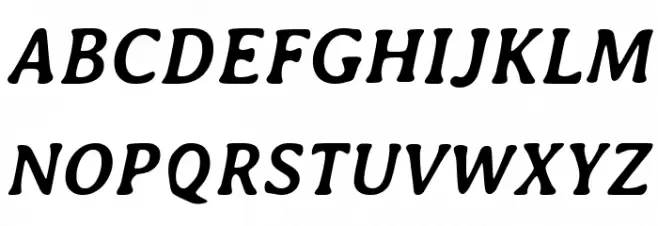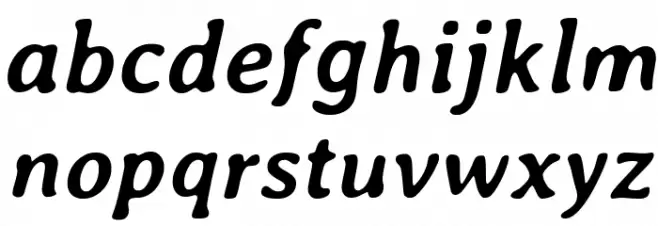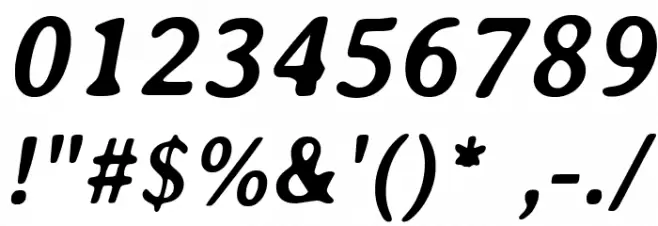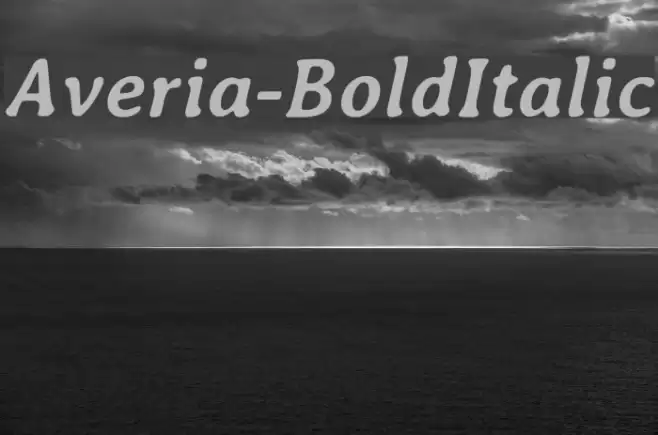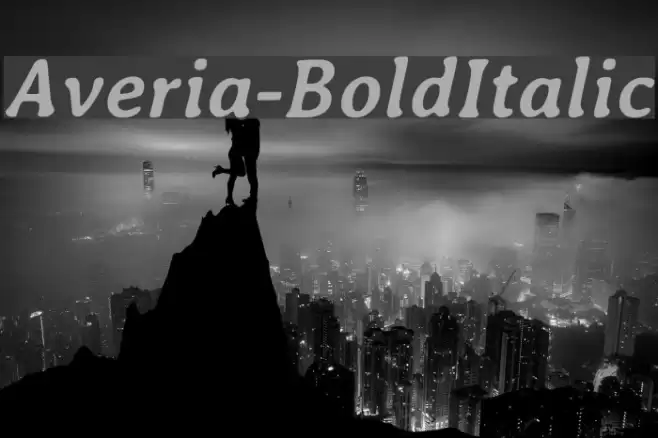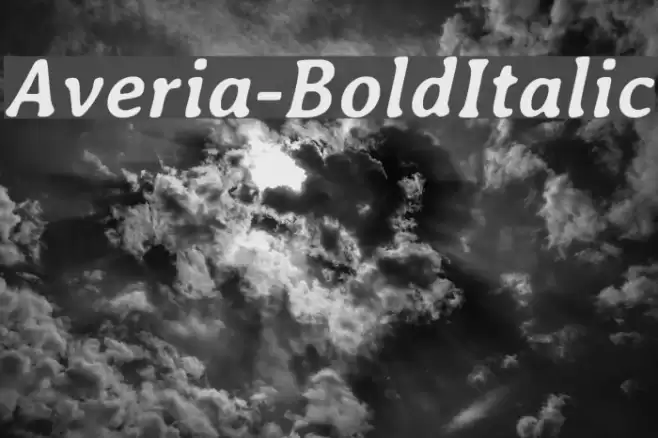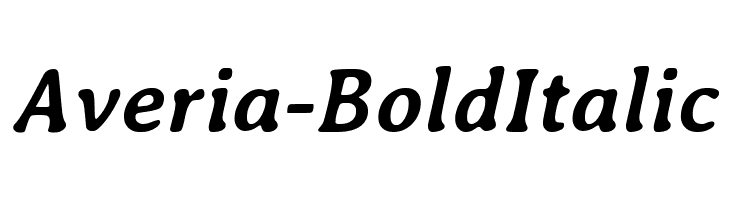
Averia-BoldItalic Font
Averia-BoldItalic Description
This font features a bold and italic style, combining a sense of strength with a dynamic slant. The characters are well-rounded and slightly condensed, giving them a robust appearance while maintaining readability. The strokes are consistent in thickness, providing a medium contrast that enhances the font's legibility. The overall design is modern with a touch of elegance, making it suitable for various creative applications. The numerals and special characters are designed to match the bold and italicized style, ensuring a cohesive look across all text elements.
A bold, italic font with medium contrast and a modern, elegant style.
- Proposed Projects: Ideal for branding, headlines, posters, and any project requiring a bold and dynamic typeface.
- Category: Sans-Serif